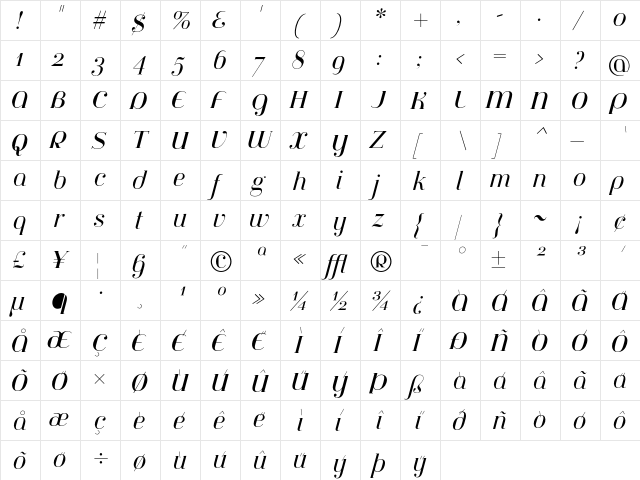
Jeanne Moderno OT Italic
Design Context for Jeanne Moderno OT Typeface
Jeanne Moderno OT is a composed and adaptable typeface that performs quietly and consistently across a wide range of design contexts. The slanted form adds forward momentum and visual energy.
Pro Tip: Try Jeanne Moderno OT for annotation and caption copy alongside an upright companion — the contrast in angle creates a dynamic but ordered typographic system.